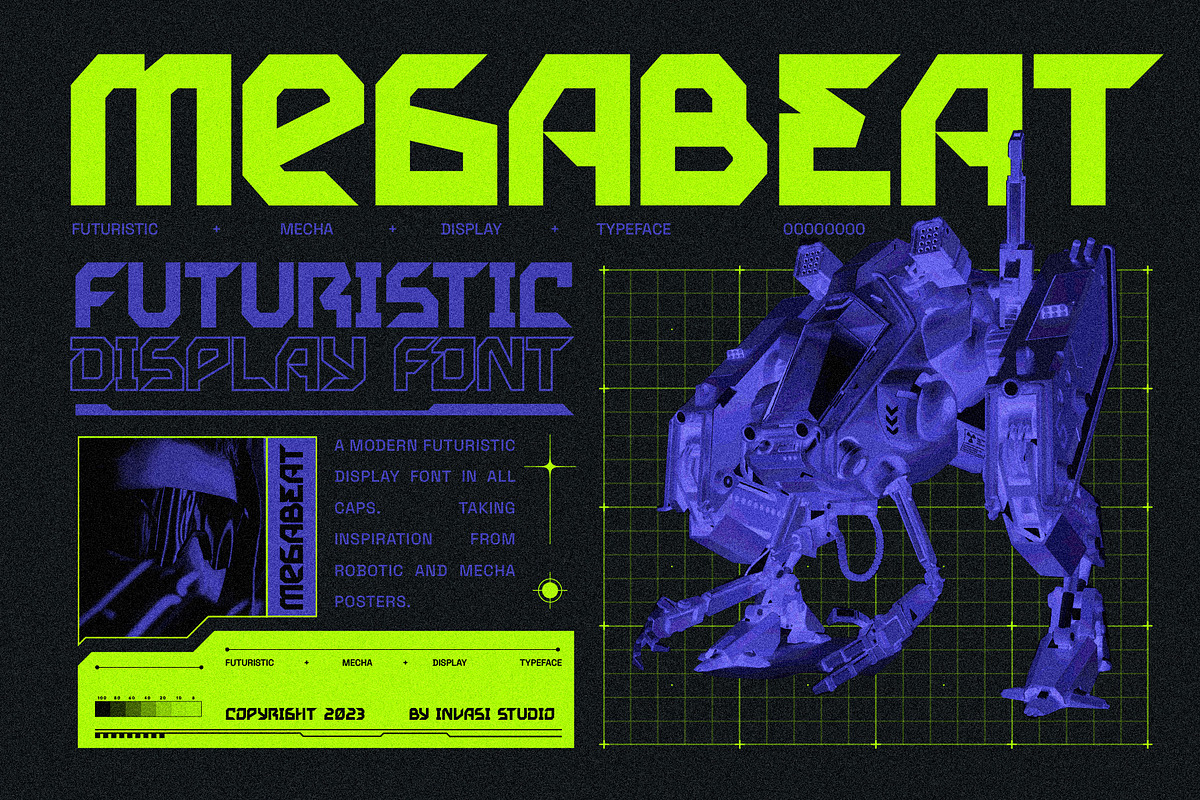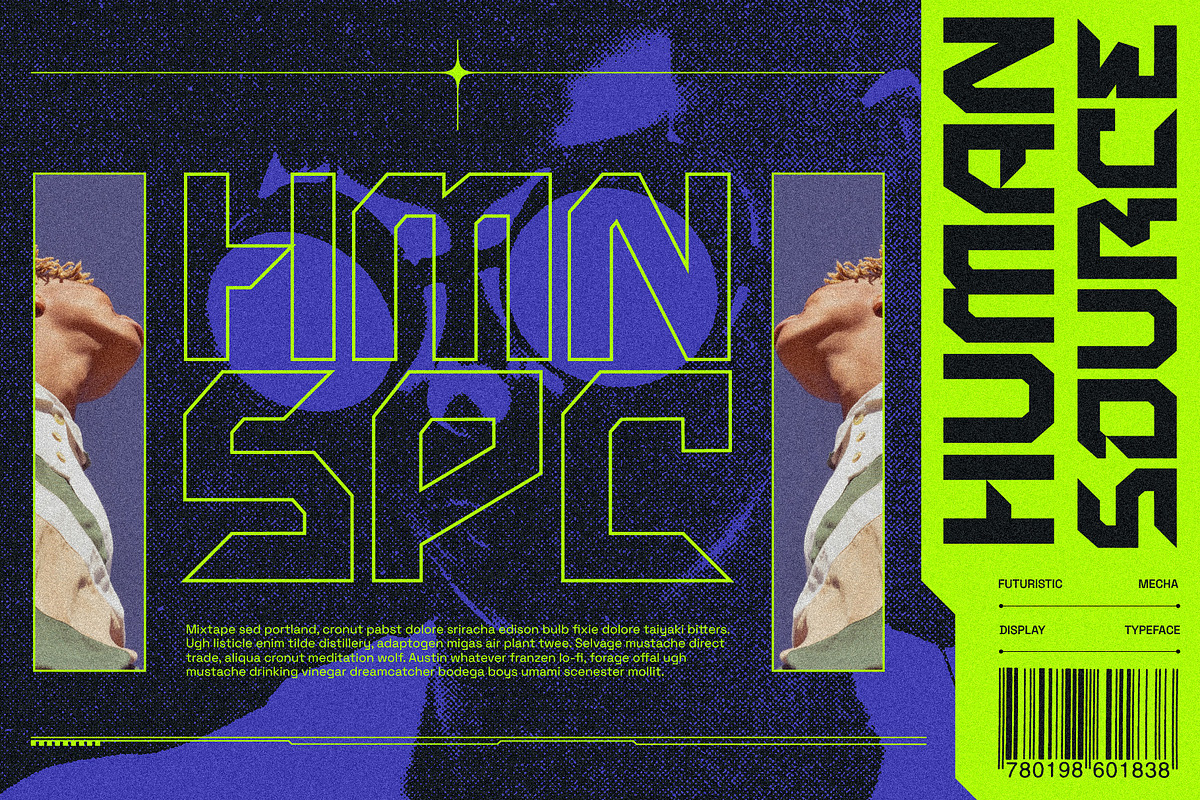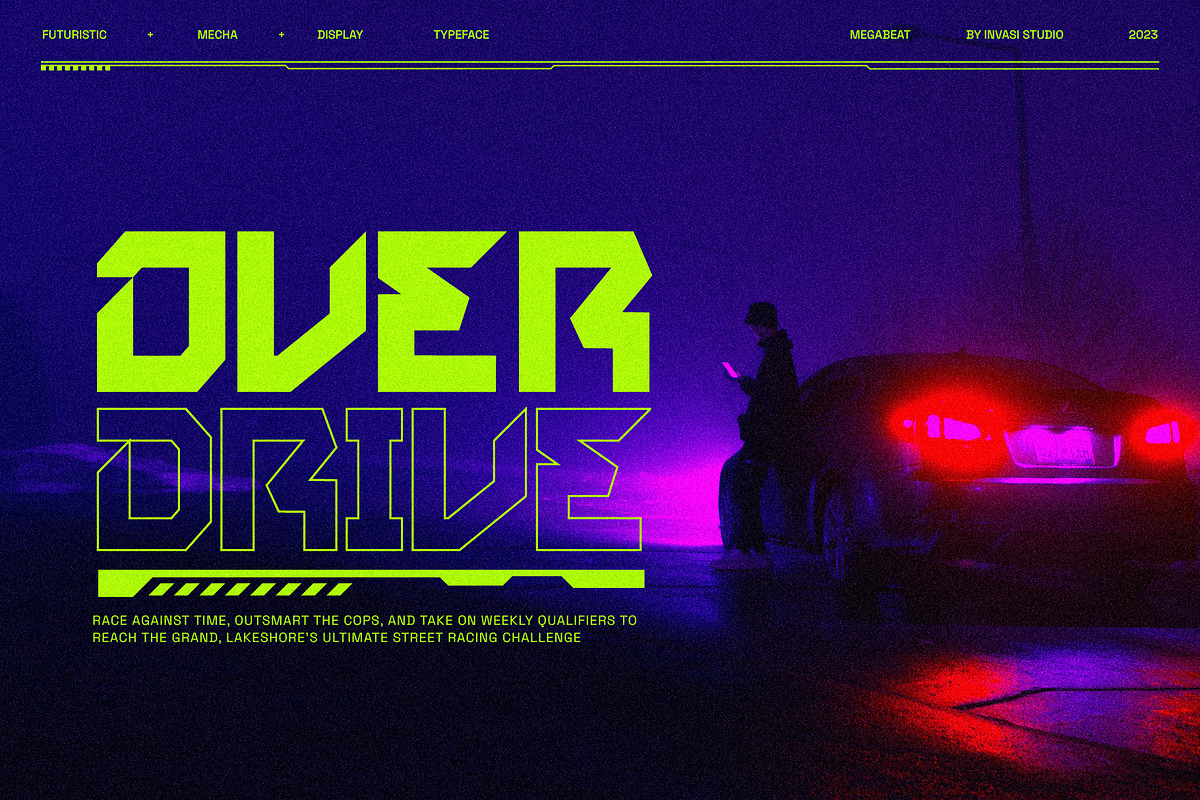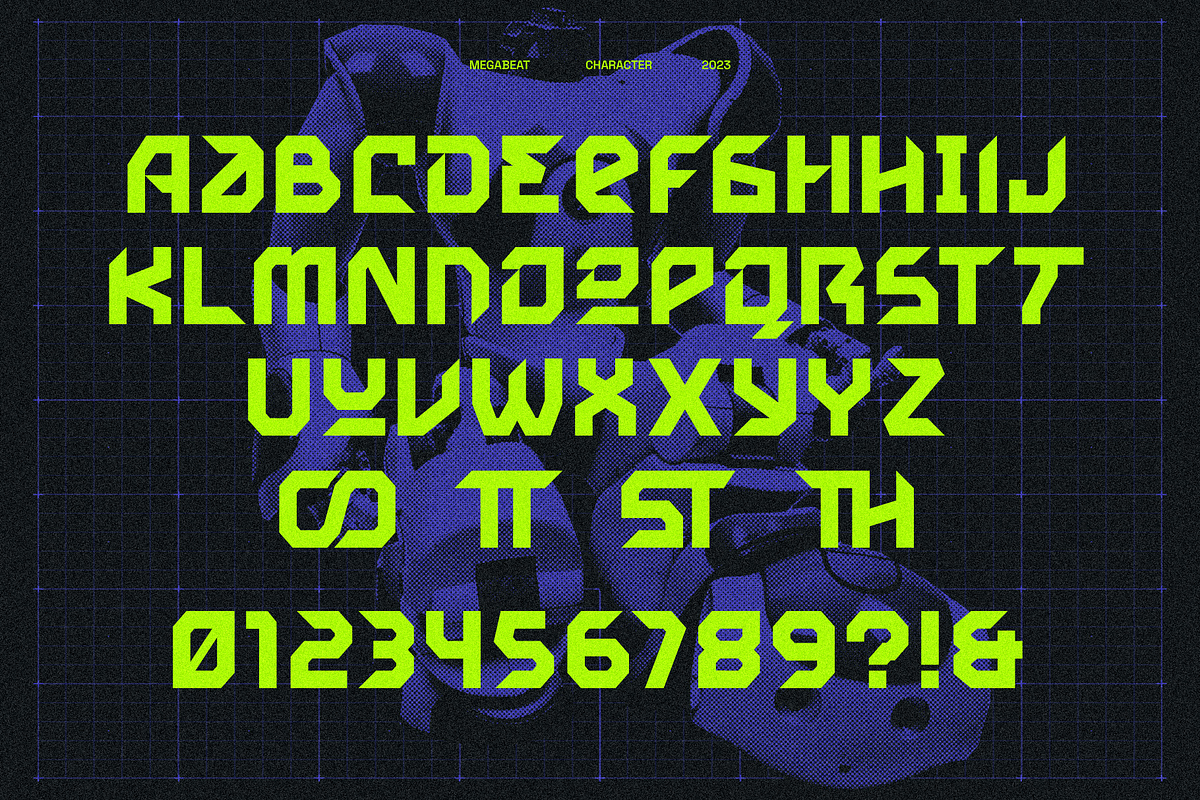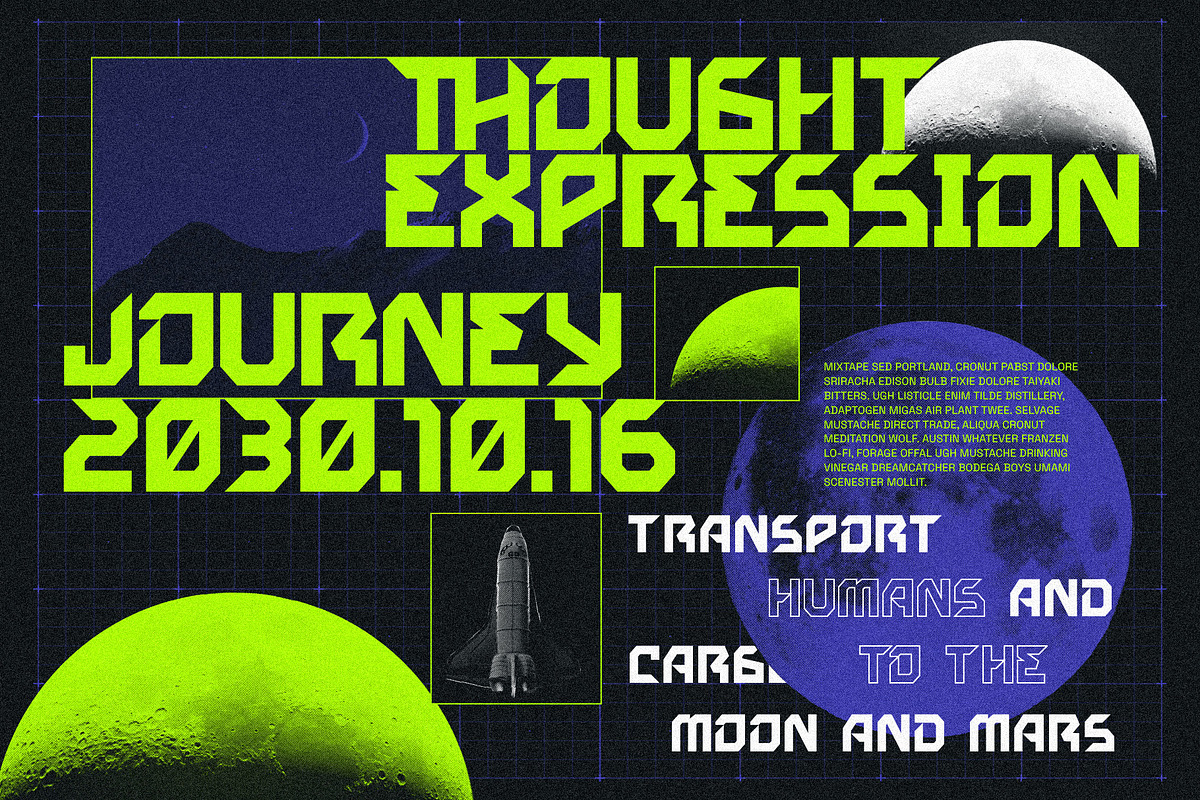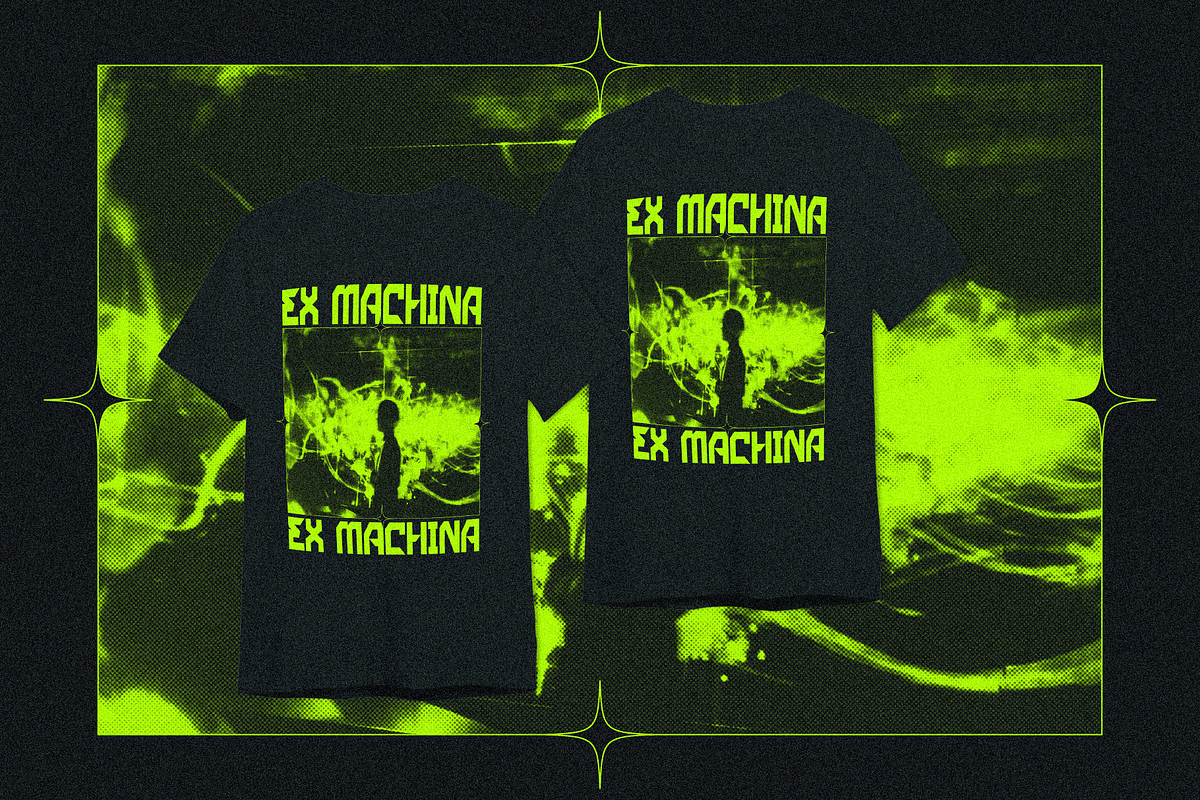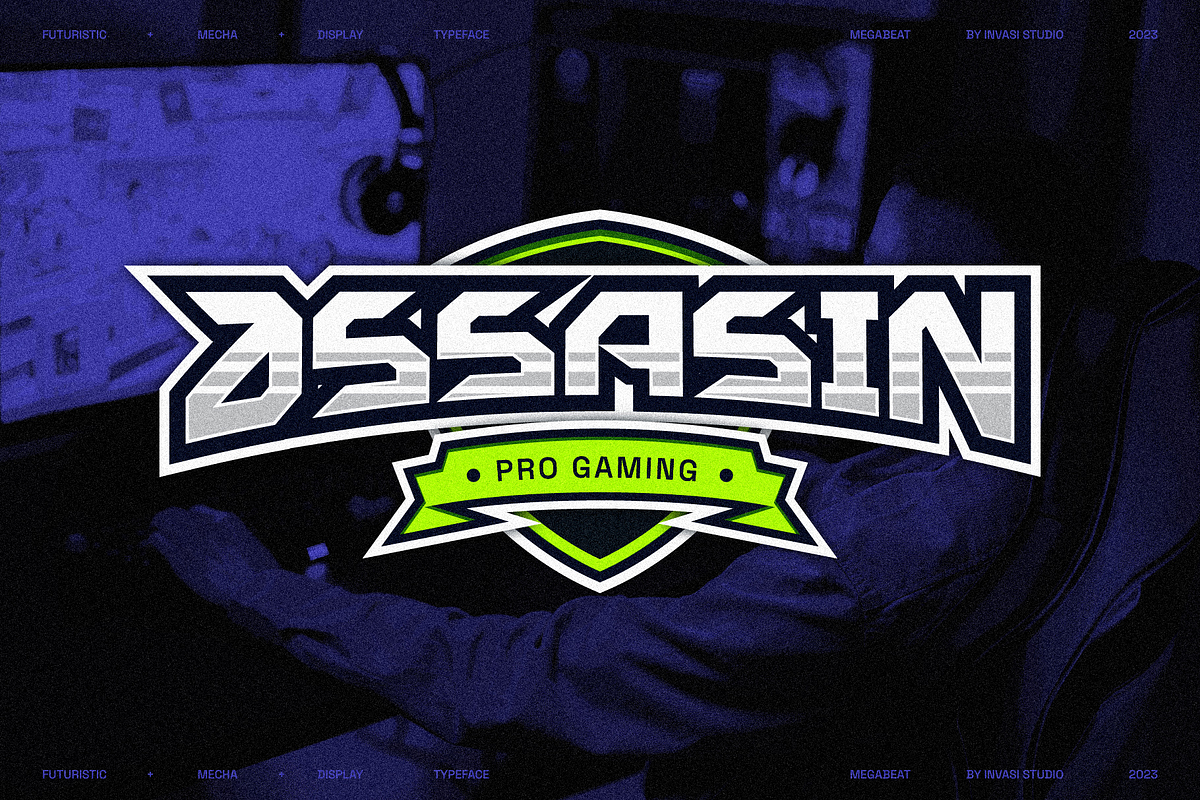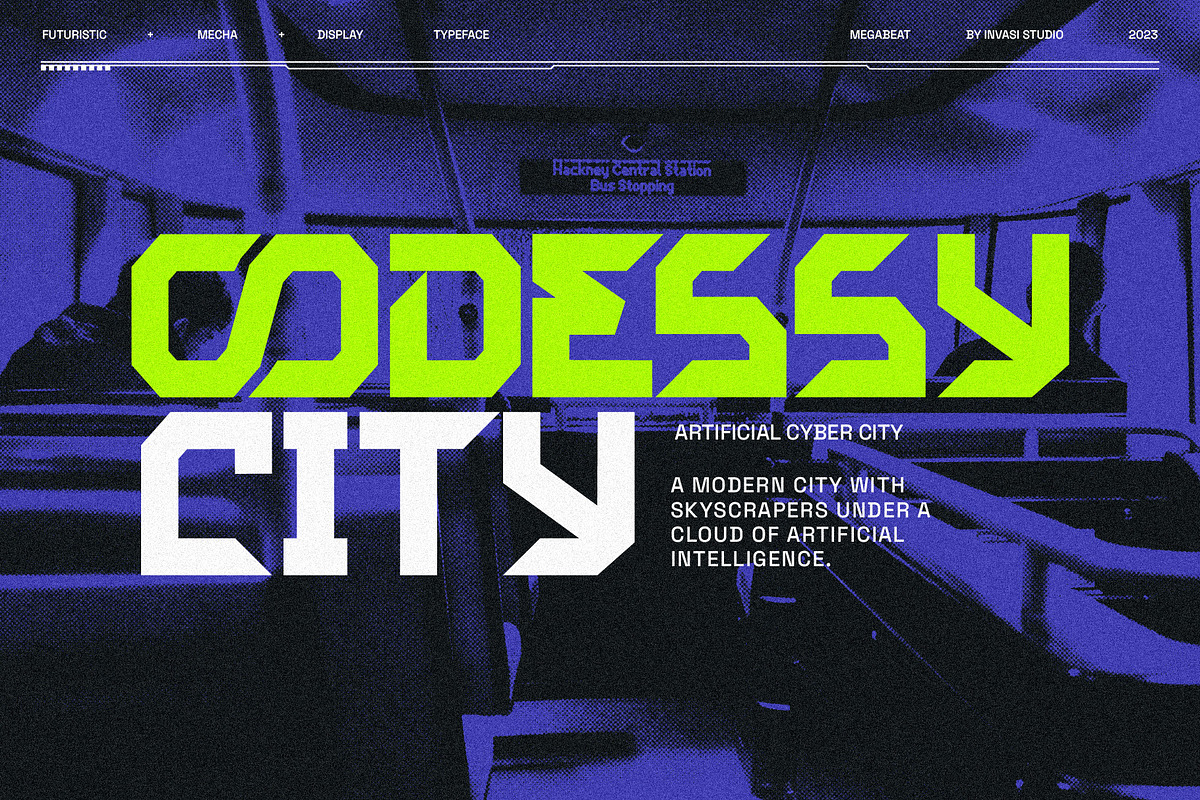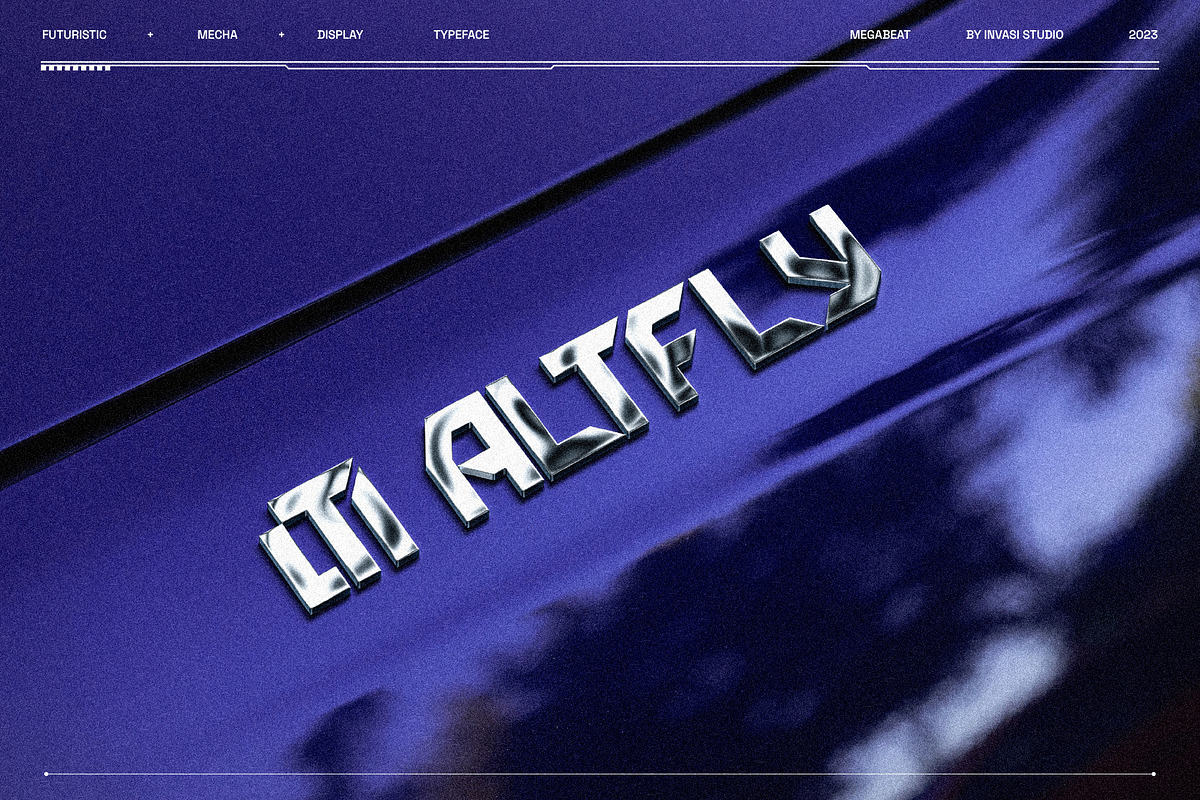
Megabeat - Retro Futurism Fonts
Megabeat Font is a new and exciting typeface that is inspired by the robotic and mecha poster movies of the past. The font references the science-fiction visual of the retro-futurism mindset, making it perfect for any project that requires a futuristic and technologically advanced design. This font is perfect for creating sci-fi movie posters, serials, technology-based branding, posters, logos, vintage illustrations, packaging, snacks, event and festival materials, album and cover artwork, books, toys, games, arcades, cards, automotive designs, and many more.
The font features bold and chunky letterforms with sharp angles and mechanical elements, giving it a futuristic and robotic feel. The font is easy to read and legible, making it perfect for headlines, titles, and other design elements that need to be easily understood. The font is perfect for any project that requires a futuristic and technologically advanced design that is inspired by the iconic visual of retro-futurism.
- Total 222 Glyph
- Multilanguage Supports 60+ Latin-based languages